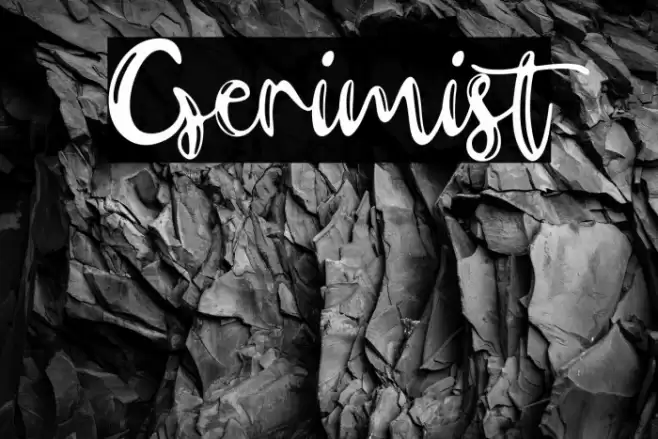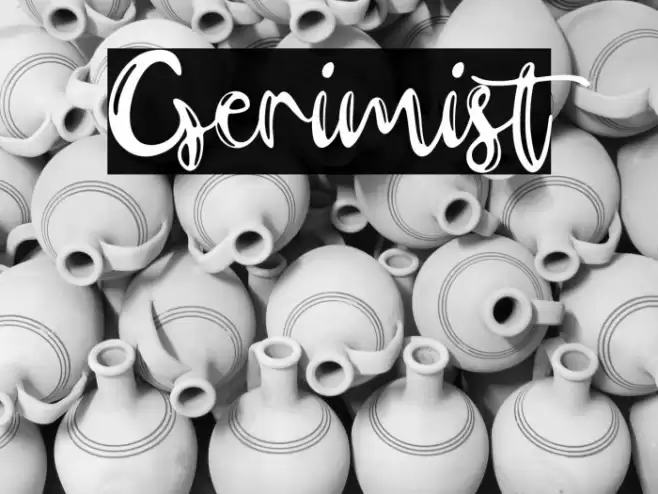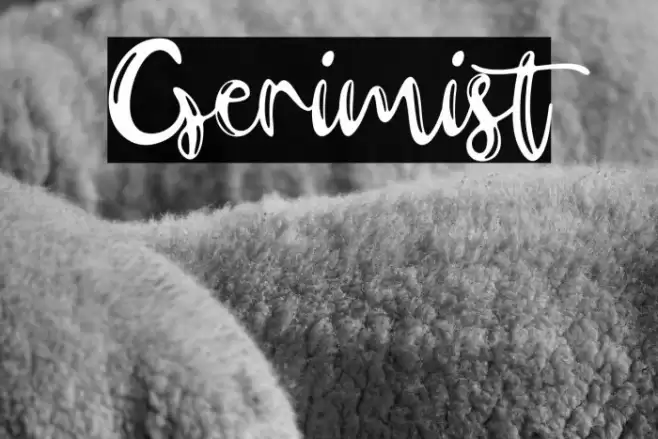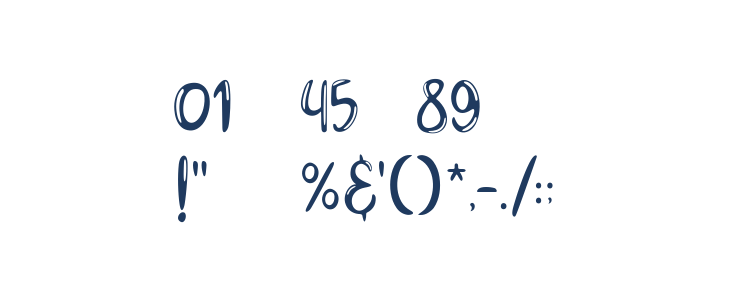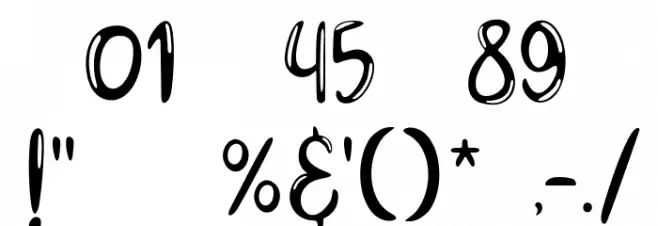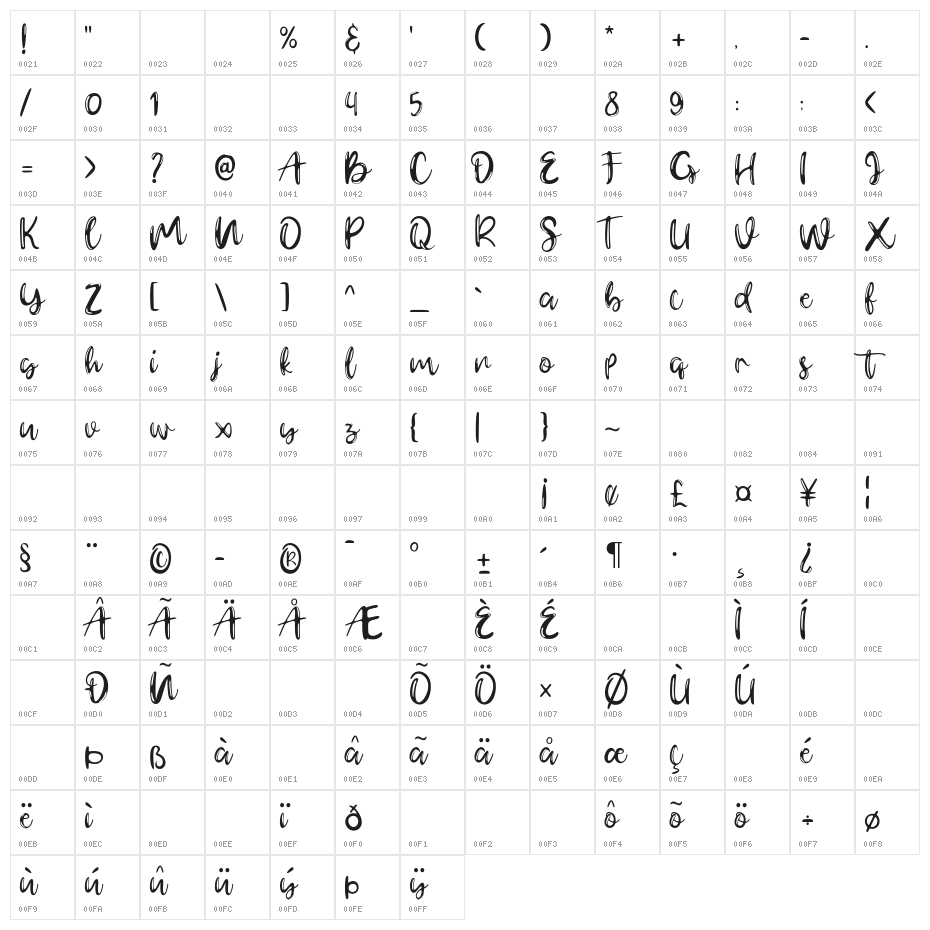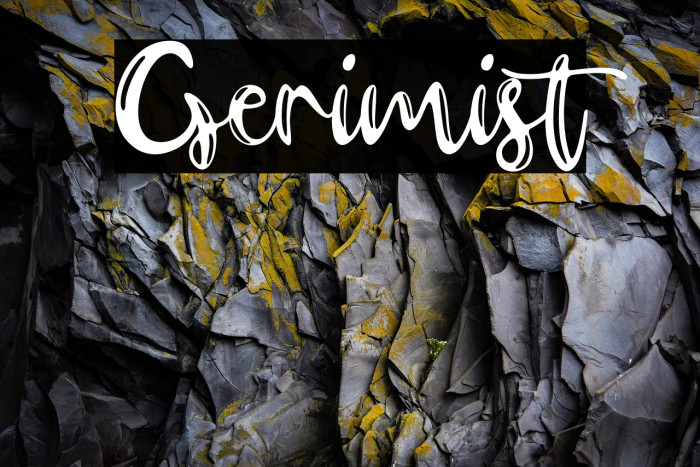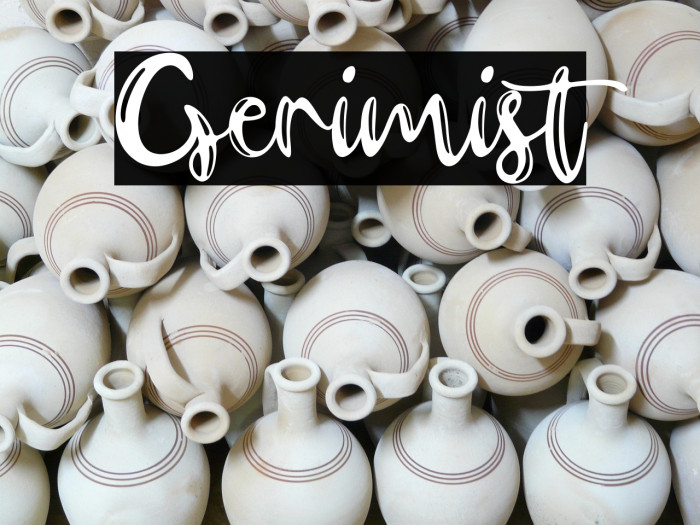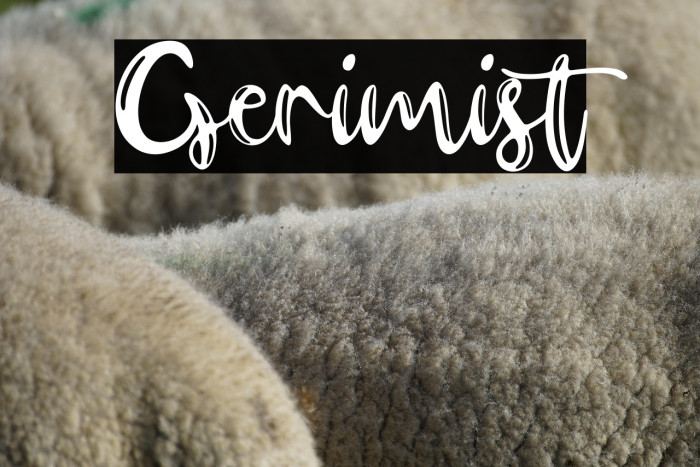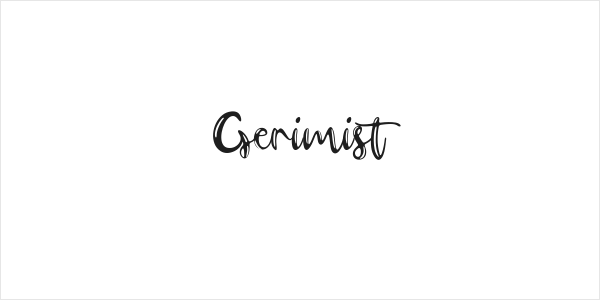
Gerimist Font
Gerimist Description
This font features a lively and expressive handwritten style, characterized by its flowing, cursive letterforms. The strokes are bold and dynamic, with a playful bounce that adds a sense of movement and energy. The uppercase letters are slightly more structured, while the lowercase letters exhibit a more fluid and connected appearance. The numbers and special characters maintain the same whimsical quality, making the font suitable for creative and informal applications. The overall design is both modern and artistic, with a touch of elegance.
A bold, cursive handwritten font with dynamic and playful strokes from Regular fonts.
- Proposed Projects: Ideal for greeting cards, invitations, branding, and social media graphics.
- Use Case: Logos, Headlines, Invitations